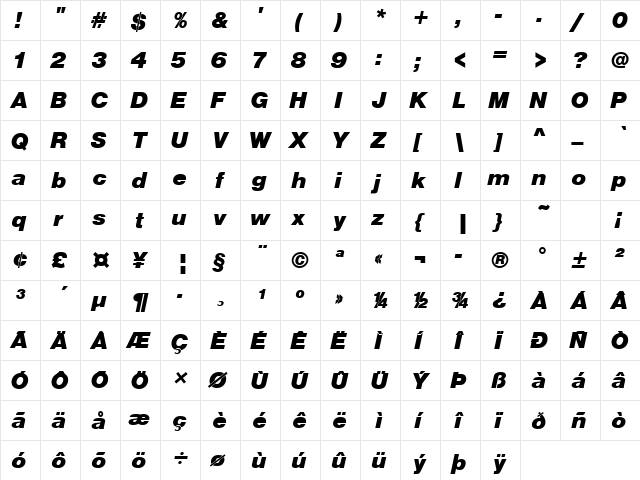
Nimbus Sans Becker PBla Italic
Design Context for Nimbus Sans Becker PBla Typeface
Nimbus Sans Becker PBla is a composed and adaptable typeface that performs quietly and consistently across a wide range of design contexts. The dynamic lean of this cut emphasises speed and emphasis in any layout.
Pro Tip: Use Nimbus Sans Becker PBla for emphasis, pull quotes, and subheadings where its slanted energy can add rhythm to the layout.